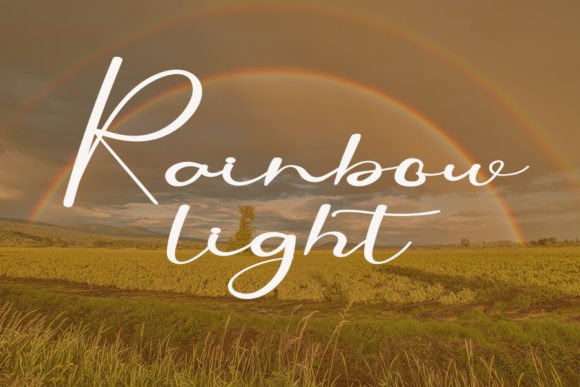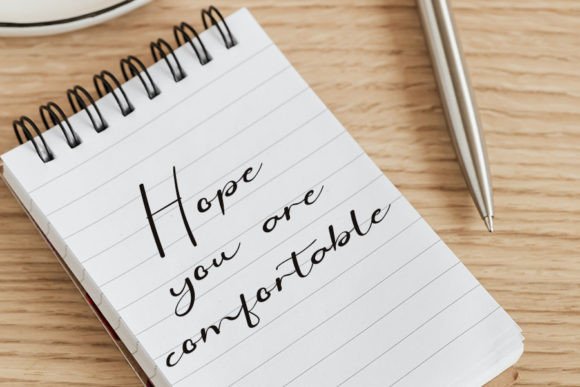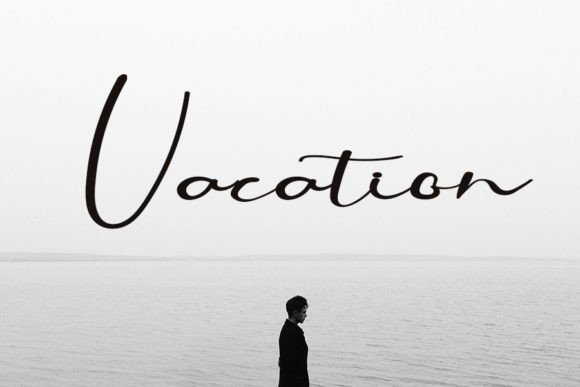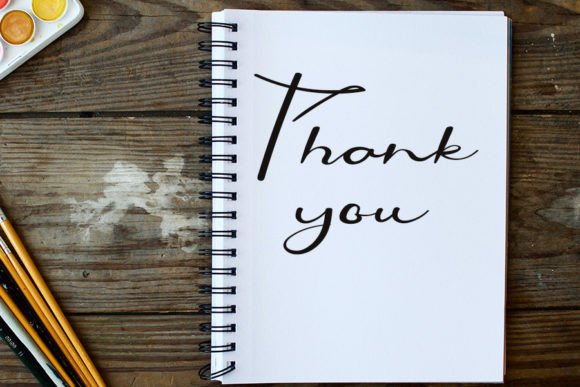
The Magic of Christmas Font: A Designer’s New Best Friend
It’s the most wonderful time of the year – and I’m not just talking about the holiday season! As a designer, I’ve been working on a festive project, and I was on the hunt for the perfect font to bring it all together. That’s when I stumbled upon Christmas Font, a cool handwritten font with a modern vibe that’s been a game-changer for my designs.
I remember struggling to find a font that was both elegant and playful, with a balanced and varied feel. I wanted something that wouldn’t be too thin or too thick, but would add a touch of sophistication to my project. And then, I found Christmas Font – inspired by classic calligraphy, with a spotless form that’s perfect for a wide range of creative projects.
So, what makes Christmas Font so special? Here are a few things that I absolutely love:
- ✨ Balanced and varied: The font has a great balance between thick and thin lines, making it easy to read and visually appealing.
- ✅ Modern vibe: Christmas Font has a fresh, modern feel that’s perfect for designers who want to create something new and exciting.
- 🎉 OpenType features: The font comes with a range of OpenType features, including glyphs and stylistic alternates, that make it easy to customize and add some extra flair to your designs.
Of course, no font is perfect, and there are a few quirks to be aware of:
- 🤔 Limited multilingual support: While Christmas Font is perfect for English-language projects, it may not be the best choice for projects that require support for multiple languages.
- ⚠️ Some kerning issues: As with any font, there may be some kerning issues to watch out for – but these can usually be easily fixed with a little bit of tweaking.
The Story Behind Christmas Font
So, where did Christmas Font come from? According to the designer, Christmas Font was inspired by the classic calligraphy of the past, with a modern twist. The goal was to create a font that was both elegant and playful, with a balanced and varied feel. And judging by the response, it’s clear that Christmas Font has struck a chord with designers and crafters around the world!
| What is Christmas Font? | Christmas Font is a cool handwritten font with a modern vibe and spotless form, inspired by classic calligraphy. |
| Is Christmas Font suitable for body text? | While Christmas Font is beautiful and elegant, it’s best suited for headlines and titles rather than body text. |